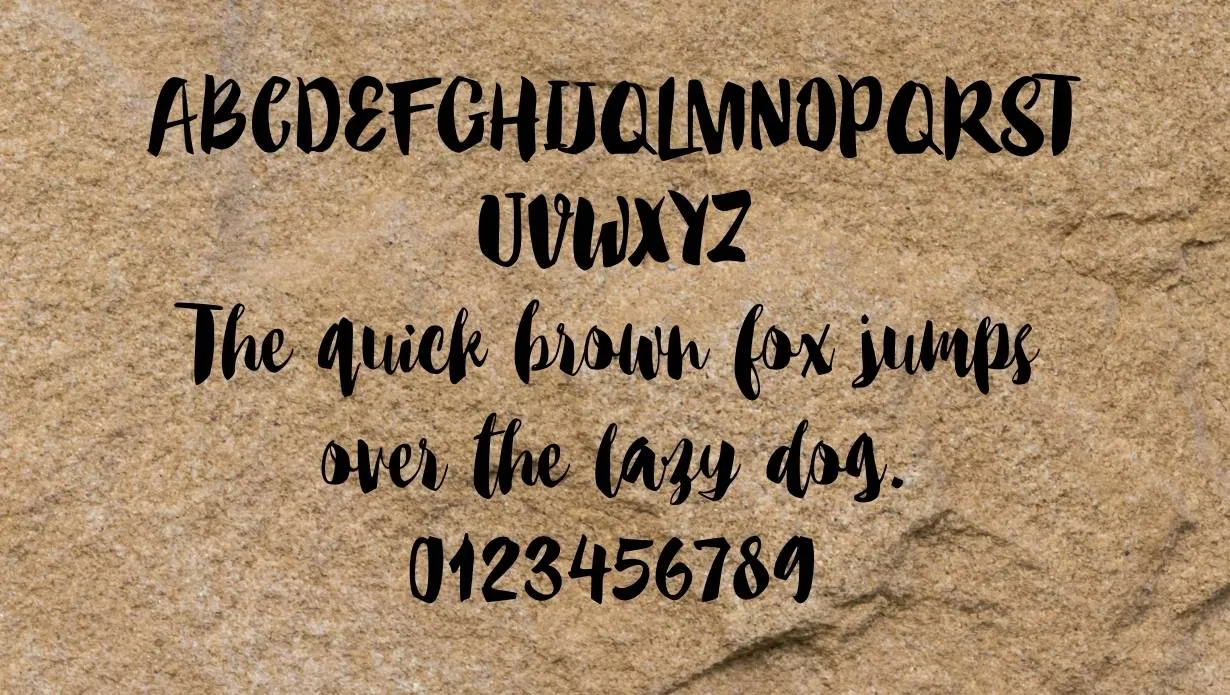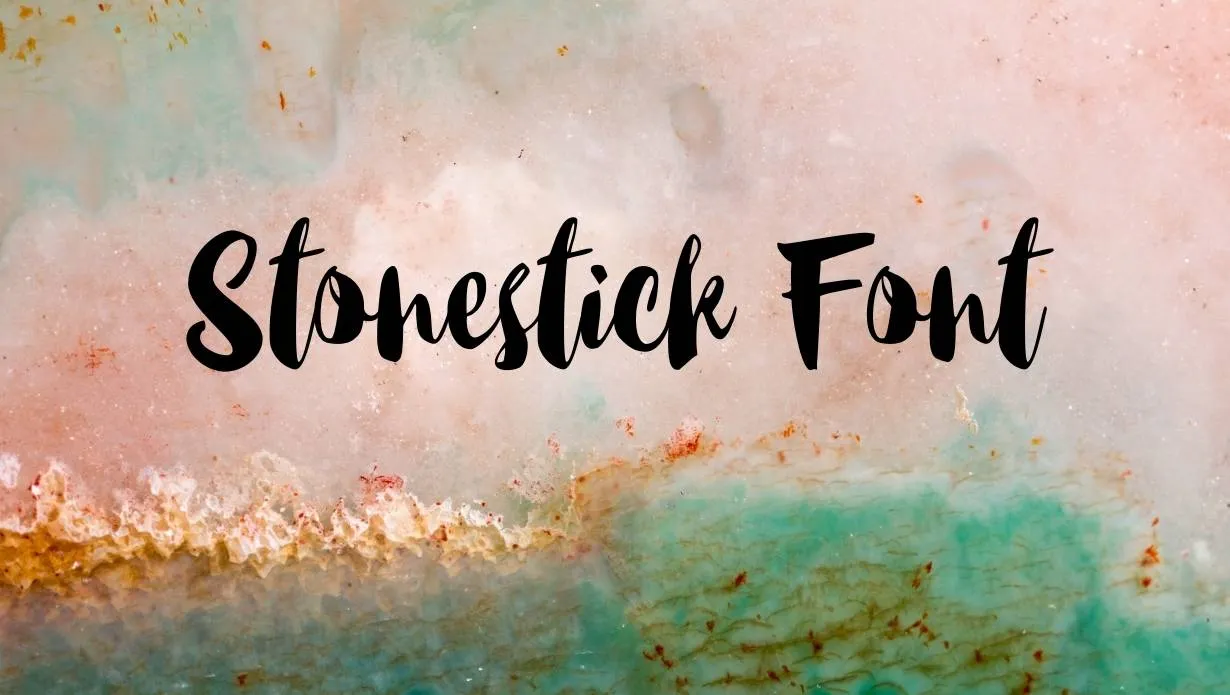
Representing you a smooth, bold, and solid shape typeface with a brush notion letterforms, it is known as Stonestick font. Its adorable stronger characters make your design more professional. The bold characters of this font are very useful to fulfill your design needs. It belongs to a Brush font family and the designer of this typeface is JROH Creative a professional type artist.
Usage of Stonestick Font
The font style is advantageous for your combination of quotes and summaries, posters, Titling and heading, Feminine logo design, blog headers, Minimal Logo designs, Various covers like Story Book Cover, T-shirts, Mugs, etc. It is also great for your Illustrations and graffiti idea designs.
Is Stonestick a proportional Font?
It is a great typeface for posters and logos and it has adorable brushy characters. It is not a monospace typeface but is also considered a proportional font.
Is stonestick a modern Font?
The font style has brush characters, symbols, numbers, and many usable punctuations. The characters in this font are very captivating which helps in modernizing it۔